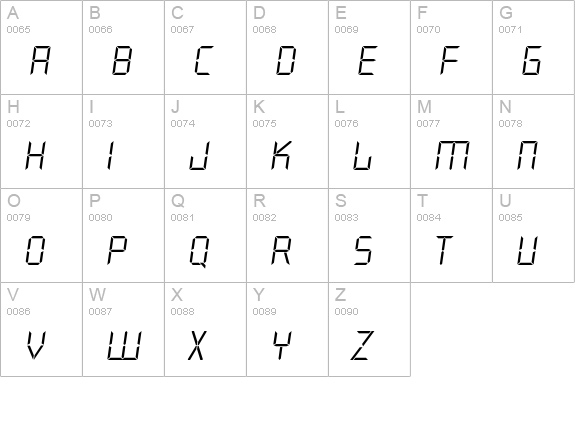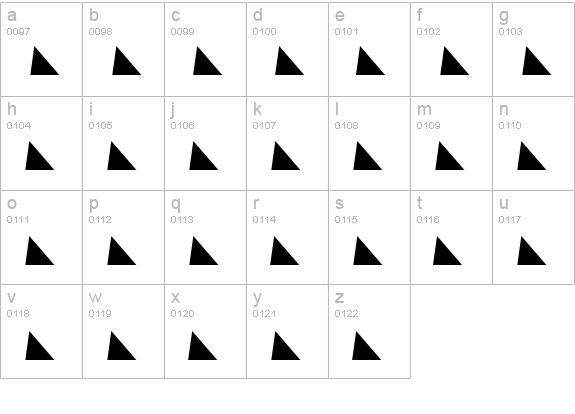
Quartz-LightIta is a stunning font that exudes elegance and sophistication. Its sleek and modern design is perfect for adding a touch of class to any project. With its slim and delicate strokes, Quartz-LightIta effortlessly captures attention and creates a sense of refinement. This font is not only visually pleasing, but it is also incredibly versatile. Whether you're designing a logo, creating a website, or crafting a beautiful invitation, Quartz-LightIta will elevate your work to new heights. One of the best features of Quartz-LightIta is that it is free. Yes, you read that right. This exceptional font is freely available to download at FontsMarket.com. Now, you can bring a touch of luxury to your designs without breaking the bank. So, why wait? Take advantage of this amazing opportunity and enhance your projects with Quartz-LightIta. Download it for free at FontsMarket.com and let your creativity shine.